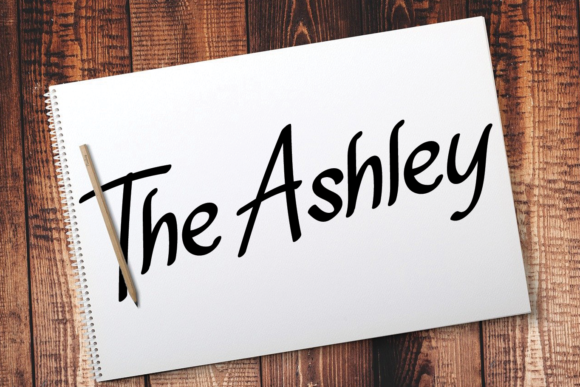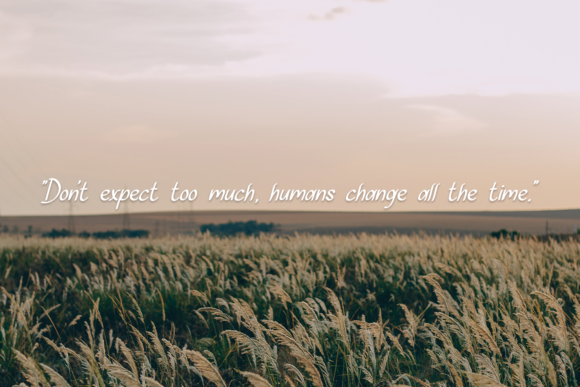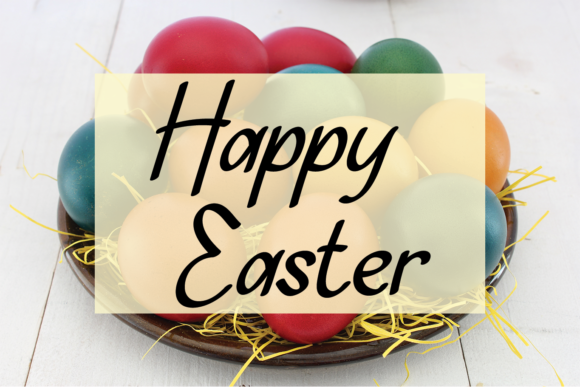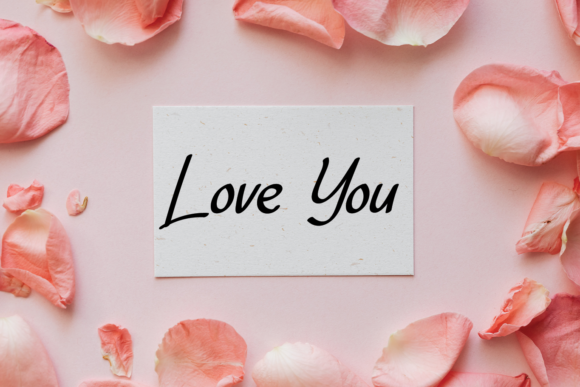
Missing You Font
About Missing You Font
Missing You is a script font that features thin lettering and a simple design. Its ravishing style is sure to captivate anyone who sees it, making it a perfect choice for a variety of creative projects.
The thin lettering of Missing You gives it a delicate and elegant feel. This makes it perfect for projects that require a touch of sophistication and elegance, such as wedding invitations or stationary art.
One of the standout features of Missing You is its simple design. This makes it incredibly versatile and easy to use, whether you’re a professional designer or a hobbyist. Its simplicity means it can fit seamlessly into any project, without overpowering the other design elements.
When it comes to wedding invitations, Missing You is an excellent choice. Its thin lettering and simple design can add a touch of elegance and sophistication to any invitation. Whether you’re going for a traditional or modern look, Missing You can help you achieve the perfect balance.
Missing You is also great for creating beautiful stationary art. Its thin lettering and simple design can add a touch of elegance and creativity to any piece of stationary, making it truly unique and personal.
Moreover, Missing You can make your social media posts stand out. Its thin lettering and simple design can add a touch of elegance and sophistication to your posts, making them more engaging and appealing to your audience.
In conclusion, Missing You is a thin lettered, simple script font that is perfect for a wide range of creative projects. Its ravishing style and versatility make it a valuable asset for any designer. So, whether you’re a professional designer or a hobbyist, Missing You is a font worth considering for your next project. Why not give Missing You a try and see how it can enhance your designs? You might be surprised at the difference it can make!